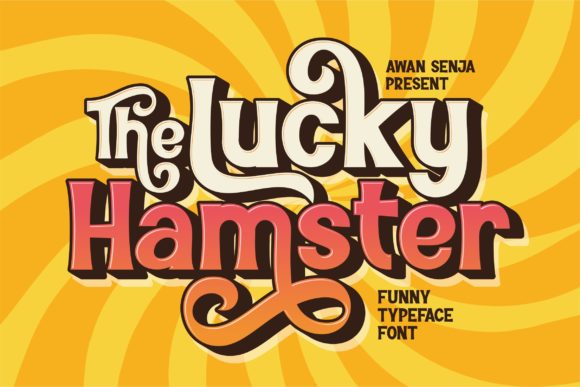
Step into a world of captivating charm and playful elegance with The Lucky Hamster Font. This extraordinary display font is a masterpiece crafted to ignite your creativity and elevate your designs to new heights.
Immerse yourself in a world where letters dance with joy, carrying the spirit of playfulness and wonder. The Lucky Hamster Font is not just a collection of characters; it's an experience that transforms your words into vibrant expressions of art.
With its playful curves and energetic strokes, The Lucky Hamster Font breathes life into your designs, whether it's an enchanting invitation, a captivating logo, a lively magazine layout, or a captivating book manuscript. Its versatility knows no bounds, making it the perfect companion for a myriad of projects.
Imagine your designs adorned with the whimsical charm of The Lucky Hamster Font, capturing the attention of your audience and leaving a lasting impression. The letters, like mischievous hamsters, leap off the page, inviting readers on an adventure of imagination and discovery.
This font is not just a tool; it's an extension of your creativity, a gateway to a world where words transform into visual wonders. Its PUA encoding empowers you with effortless access to a treasure trove of glyphs and swashes, unlocking endless possibilities for customization and artistic expression.
Don't settle for ordinary fonts that blend into the background. Embrace the playful spirit of The Lucky Hamster Font and watch your designs come alive with a vibrant energy that captivates and enchants. Step into a world of imagination and let your creativity soar to new heights.